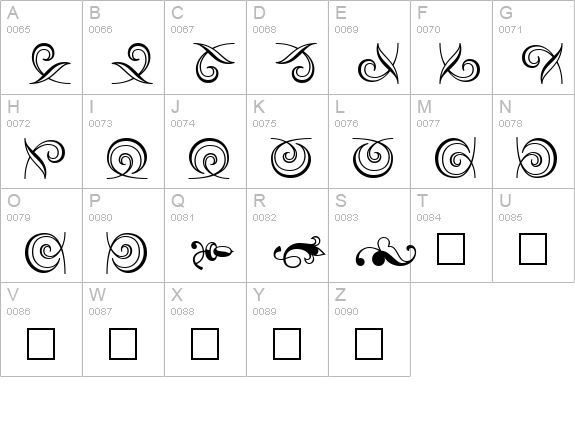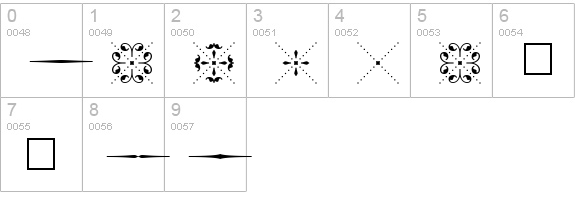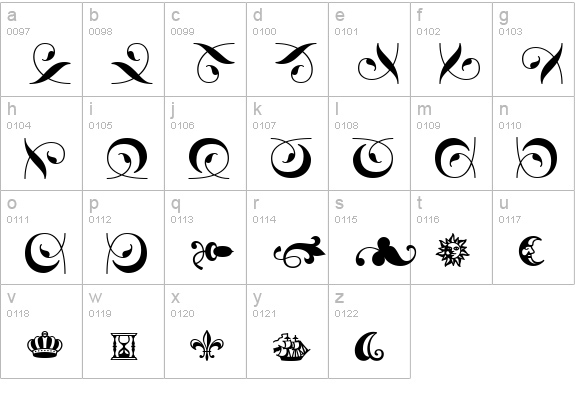
Hoefler Text Ornaments Font Details
Hoefler Text Ornaments is a beautifully crafted font designed to add a touch of elegance and sophistication to your designs. With its intricate details and ornate patterns, this font is perfect for creating stunning decorative elements and embellishments. The delicate curves and intricate flourishes of Hoefler Text Ornaments will bring a sense of refinement and luxury to any project. What makes Hoefler Text Ornaments even more appealing is that it is available for free download at FontsMarket.com. This means that you can easily access this exquisite font and use it in your designs without any cost. Whether you are working on a wedding invitation, a branding project, or any other creative endeavor, Hoefler Text Ornaments will elevate your design to a whole new level. Don't miss out on the opportunity to enhance your projects with the beauty of Hoefler Text Ornaments. Download this stunning font for free at FontsMarket.com and let your creativity shine!